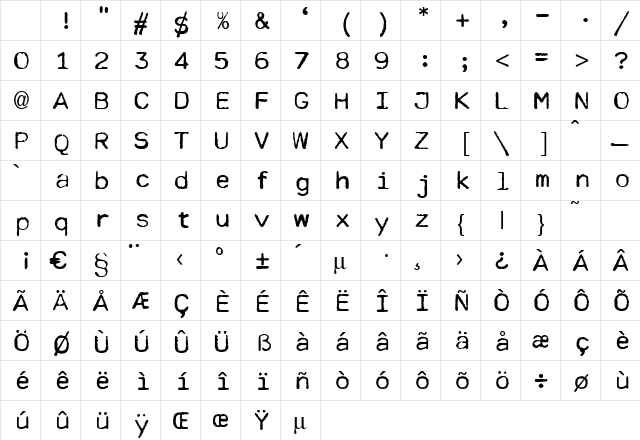
Complete Cella Regular glyph index. Displaying only characters natively supported by Cella Regular font.
Cella is a composed and adaptable typeface that performs quietly and consistently across a wide range of design contexts.